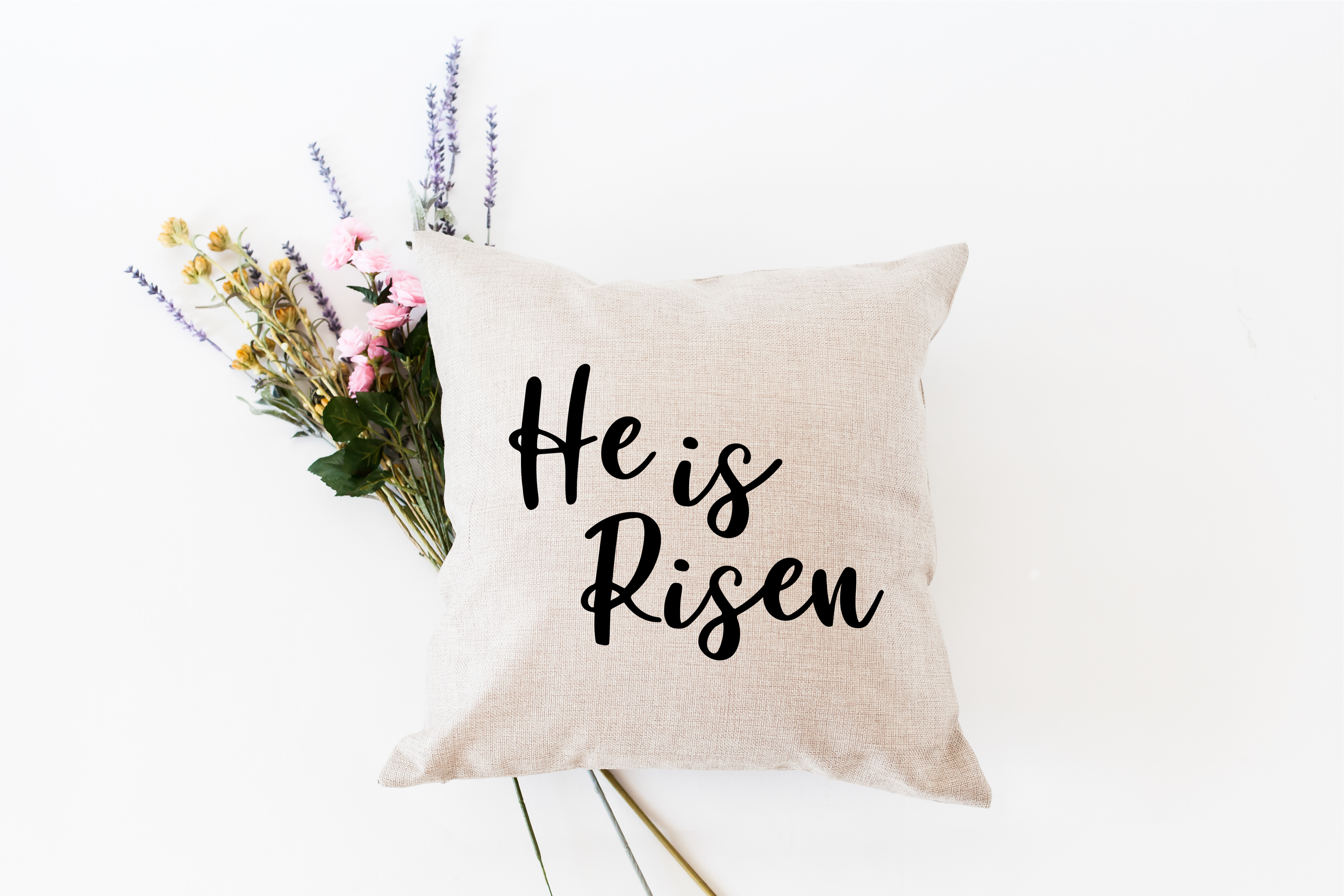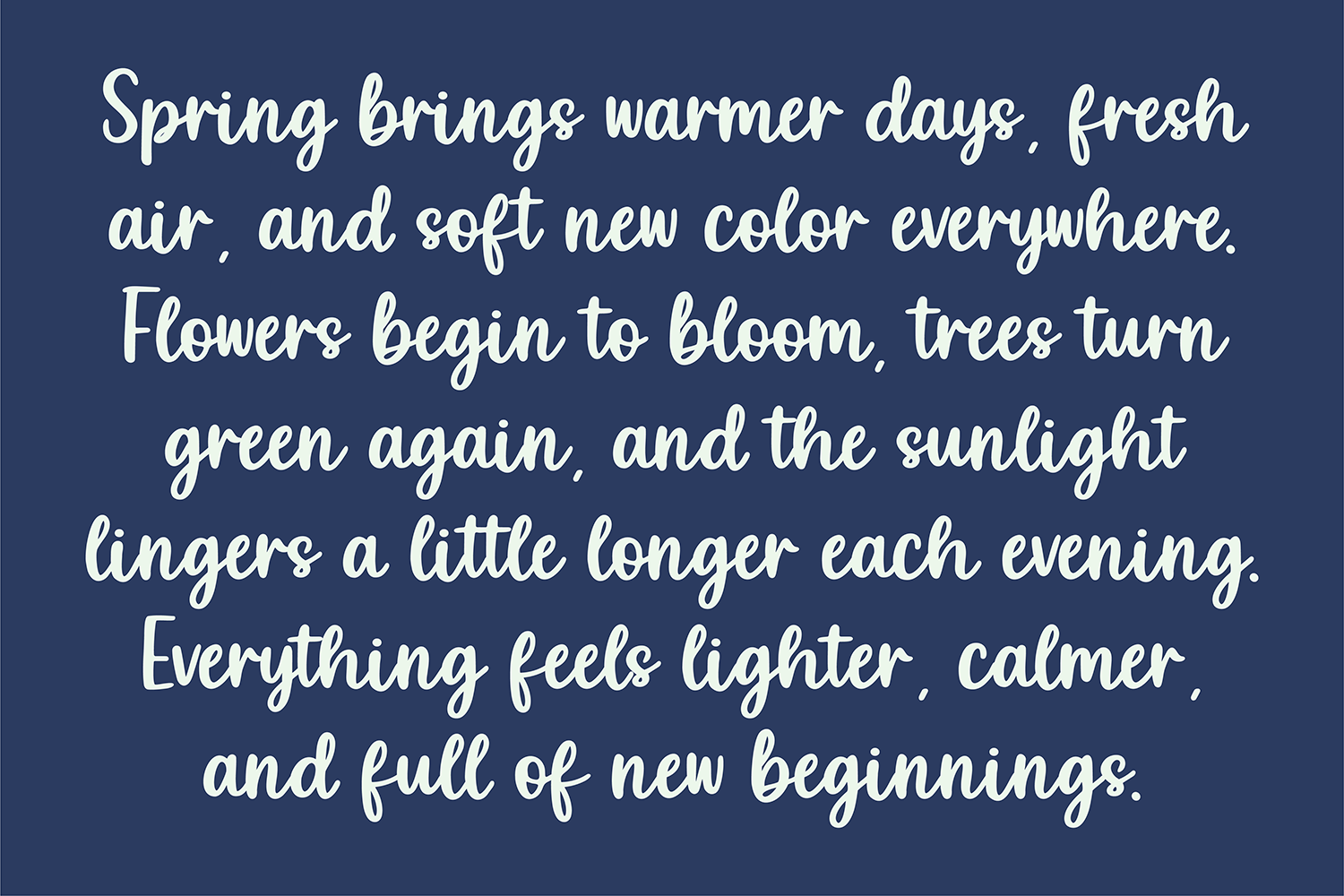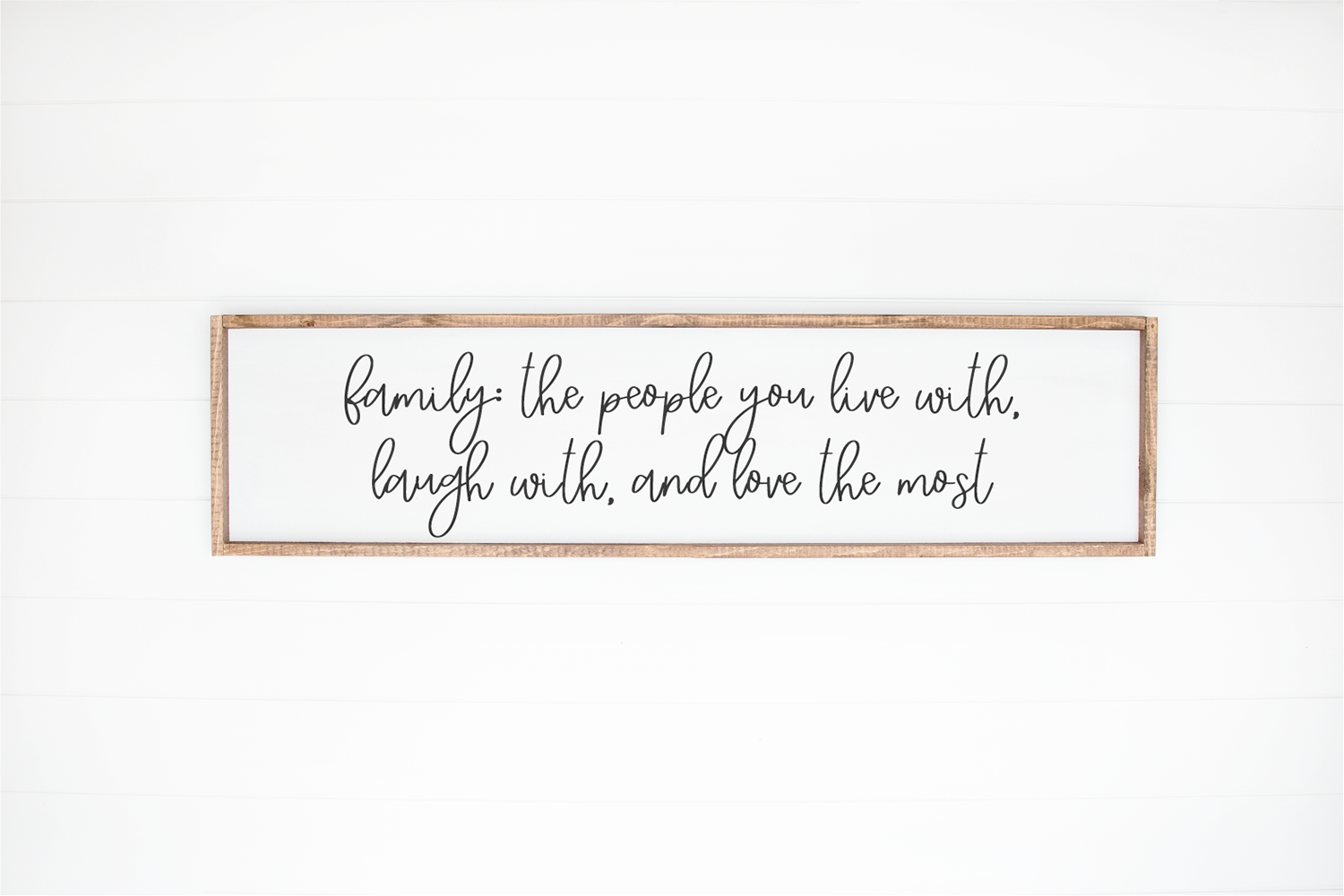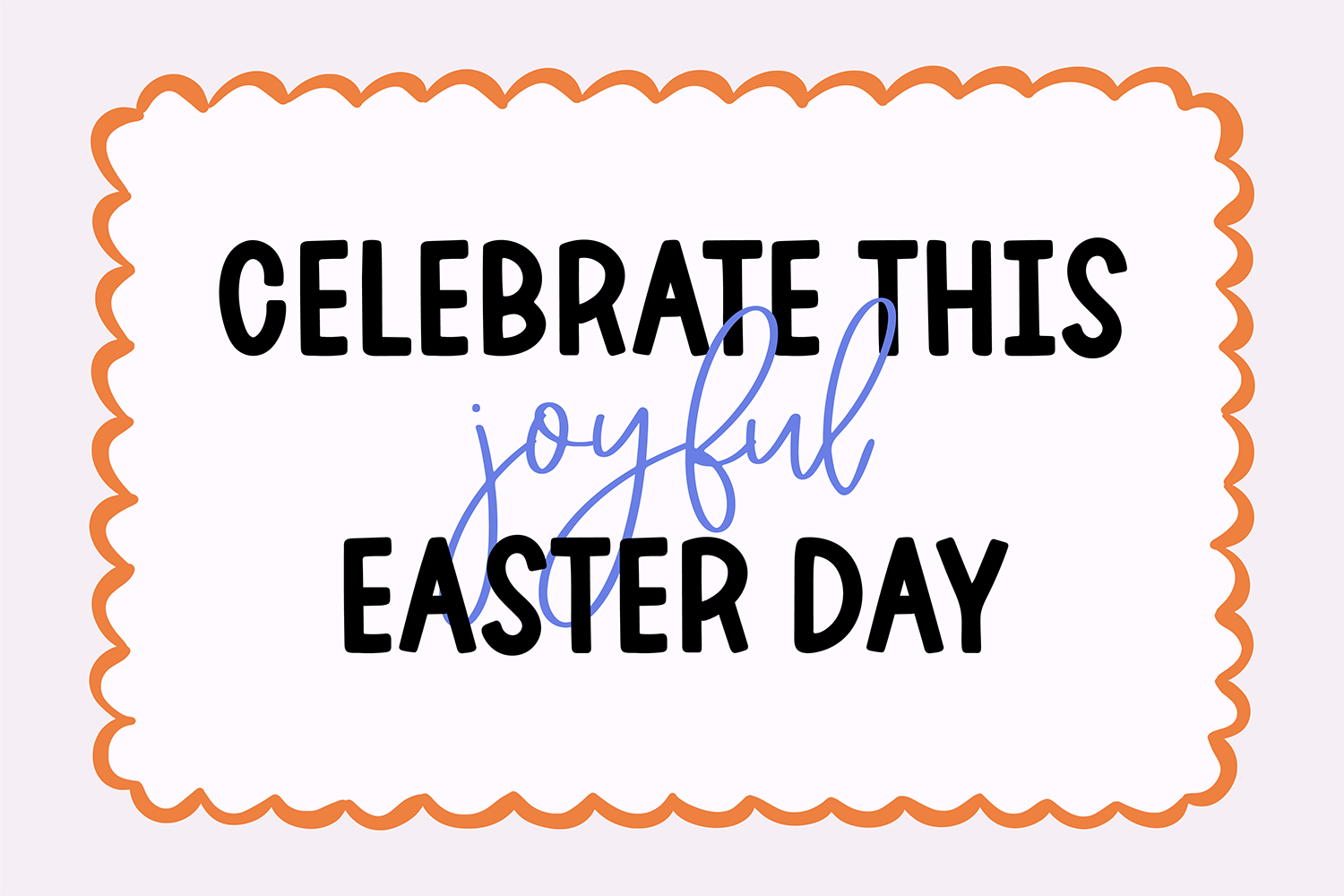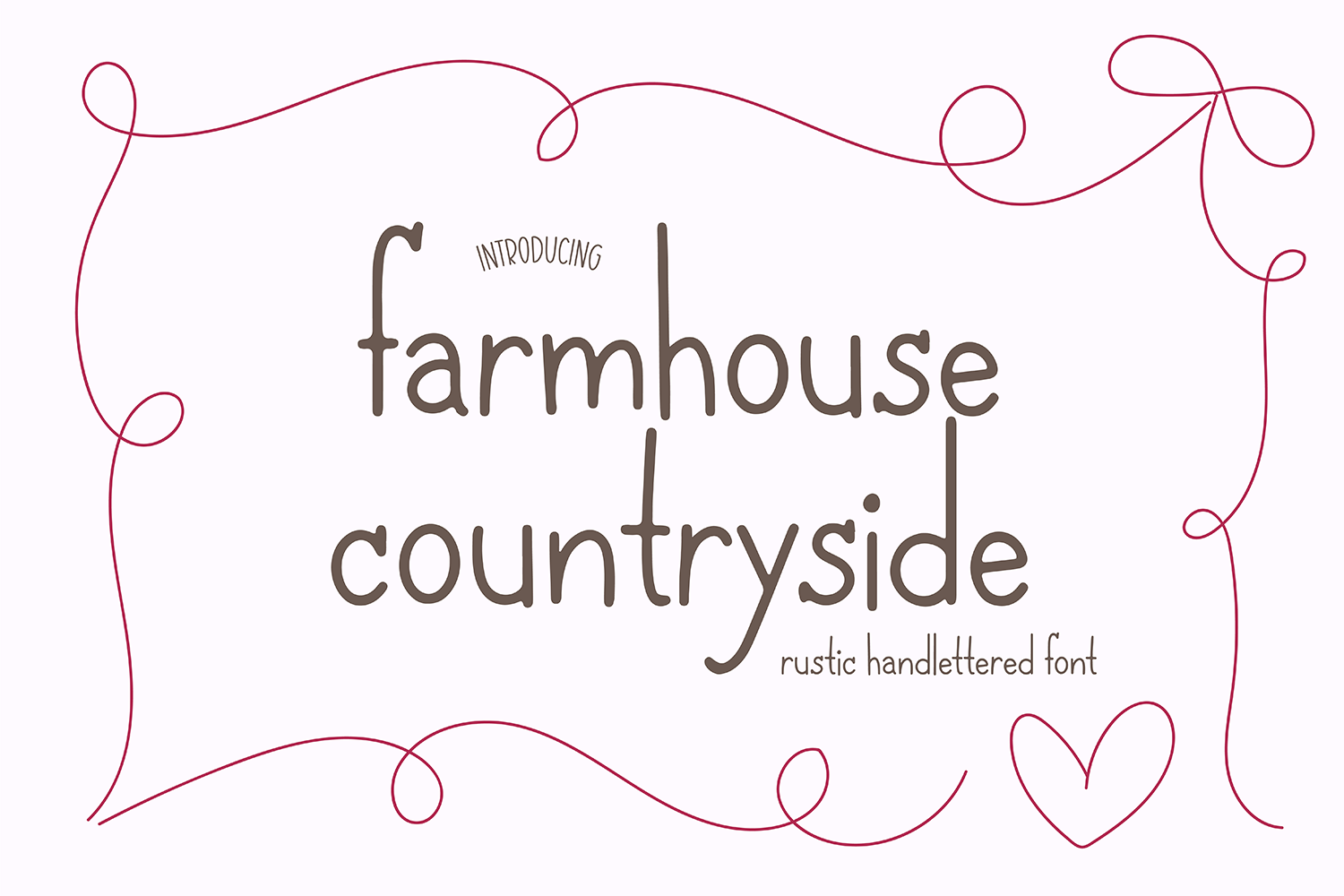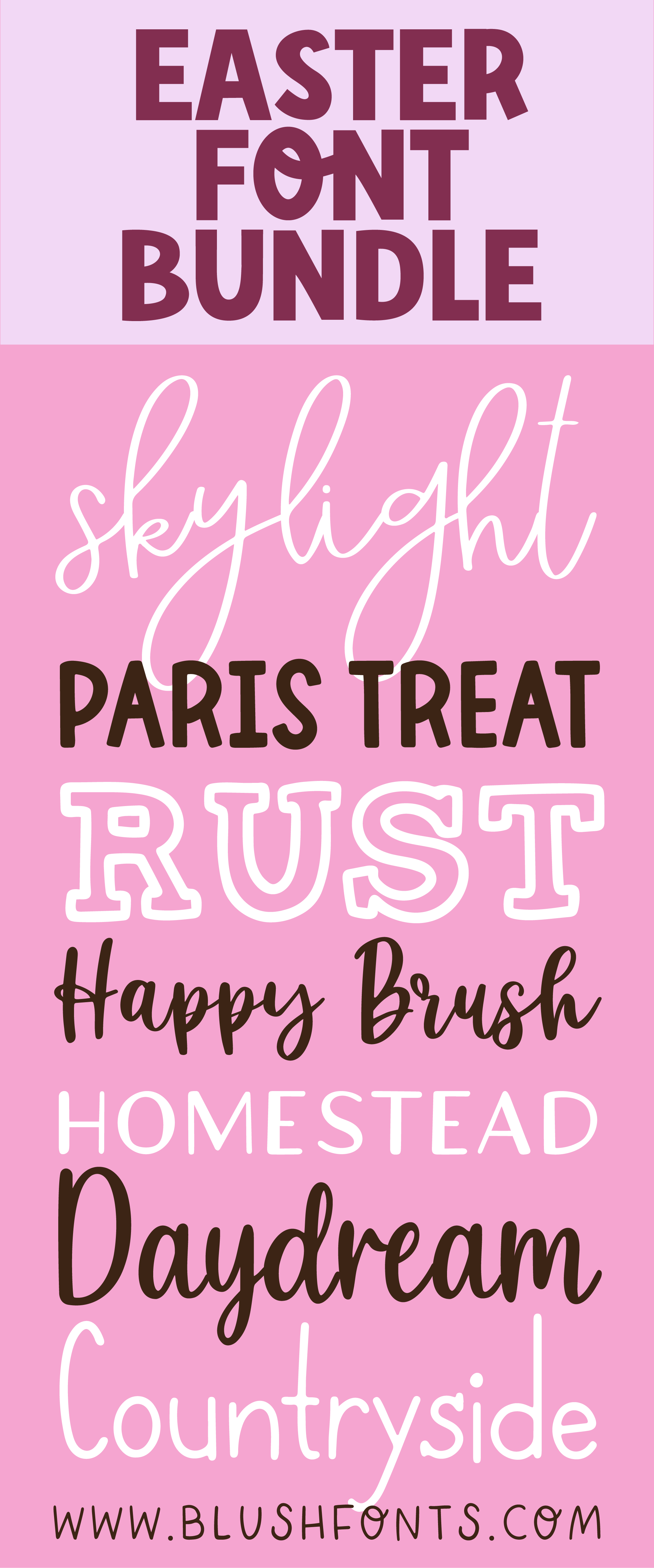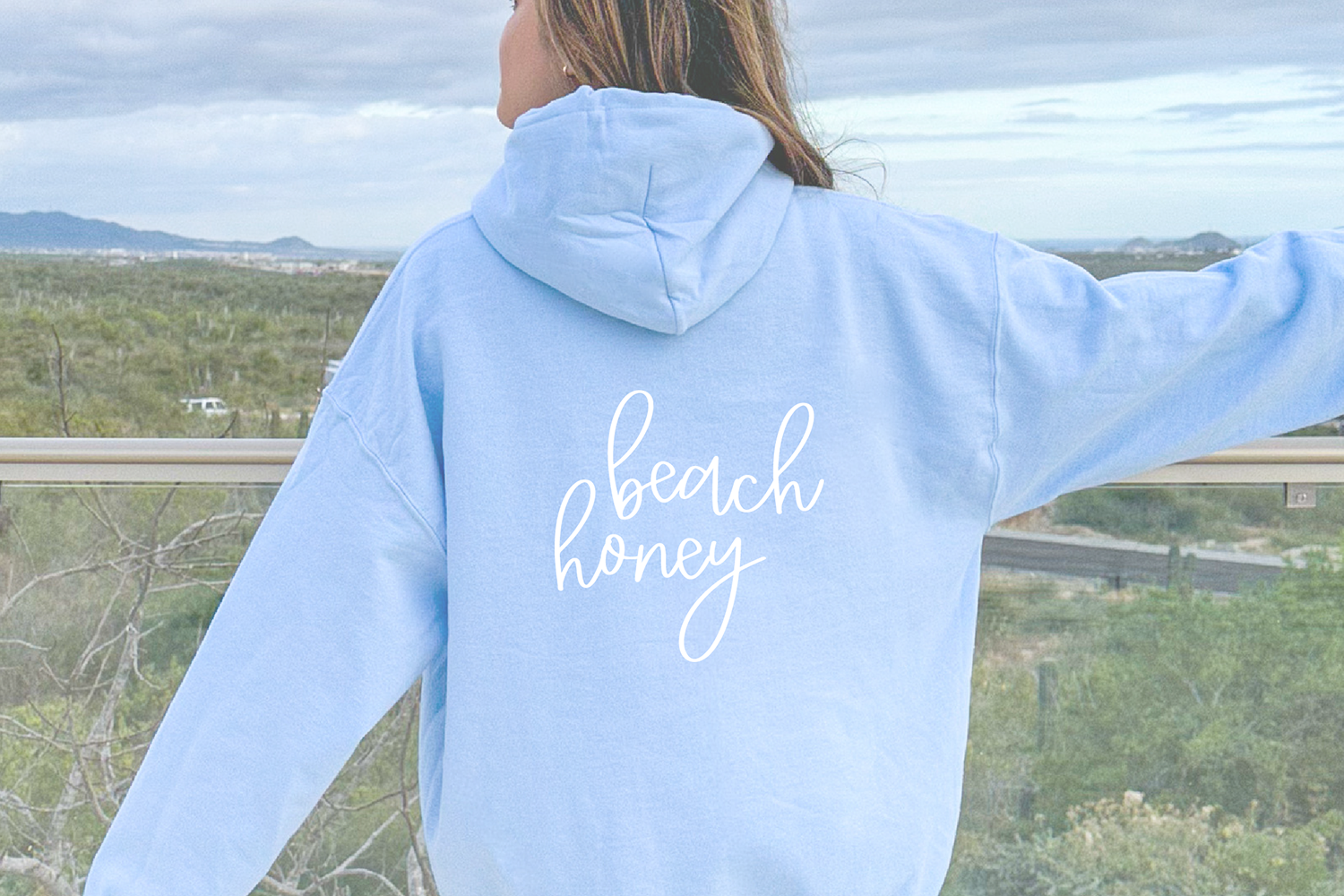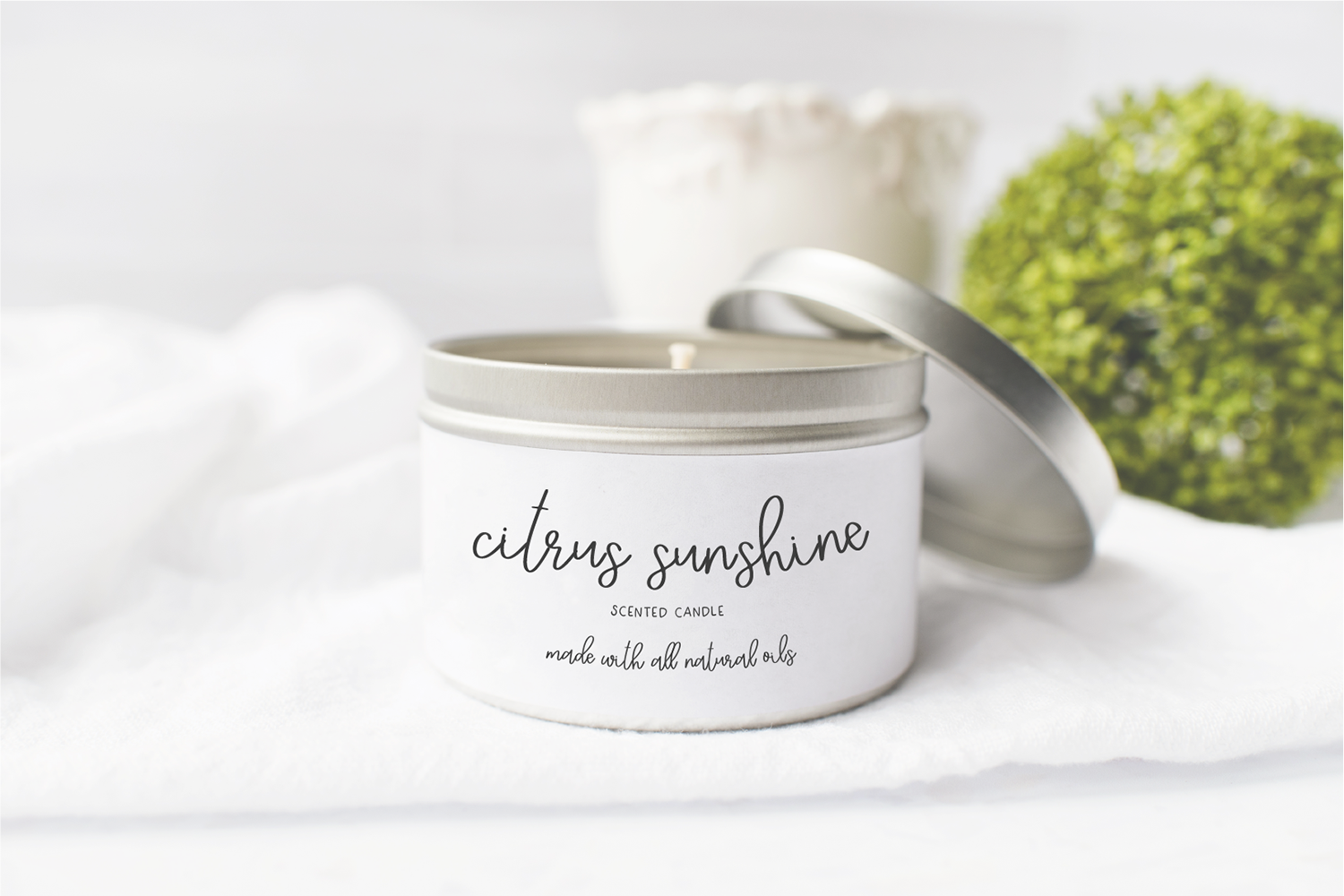
This Easter font bundle includes a beautiful mix of 8 handlettered brush script fonts and clean sans serif fonts. Perfect for Cricut projects, Easter crafts, spring signs, t-shirts, and digital designs. Designed with a soft, playful, and modern feel, these fonts are ideal for creating seasonal designs that stand out.
From bold brush lettering to simple, easy-to-read sans styles, this bundle gives you everything you need to mix and match for eye-catching Easter designs. Whether you're making vinyl decals, farmhouse signs, cute apparel, or social media graphics, these fonts are versatile and easy to use.
This bundle is perfect if you want a cohesive set of Easter and spring fonts that combine bold, hand-painted brush styles with clean, modern sans fonts for endless design possibilities.